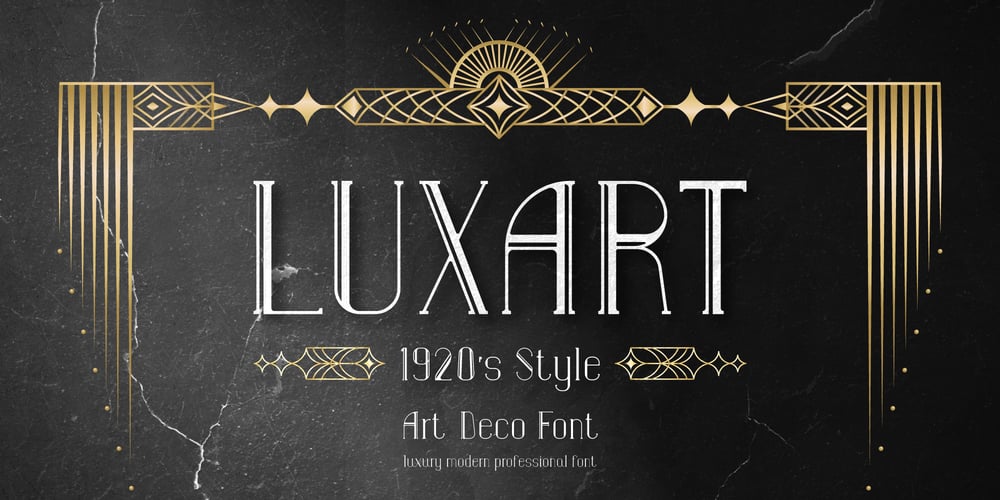
Luxart Font Family was designed by Igal Faitman, Polina Faitman and published by Fontiko. Luxart contains 1 styles and family package options. Luxart is a modern Serif Decorative font inspired by the 1920’s, Art Deco and Gatsby styles. This font looks luxury, stylish, elegant and neat. This font is great for logo branding & invitations, photography, quotes, wedding design, business cards, posters, watermark, holiday cards, special events and much more.